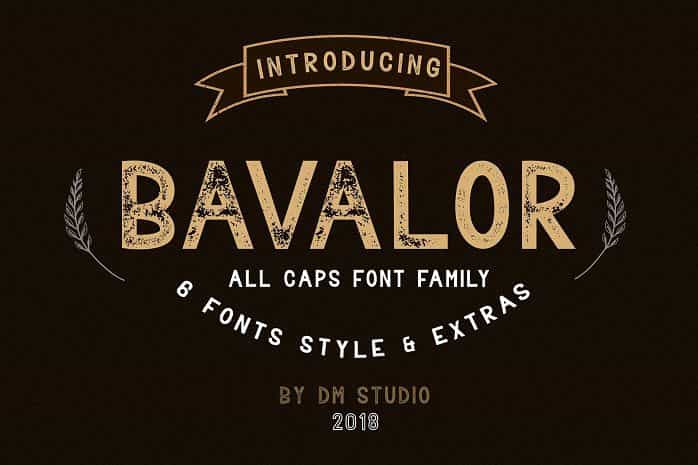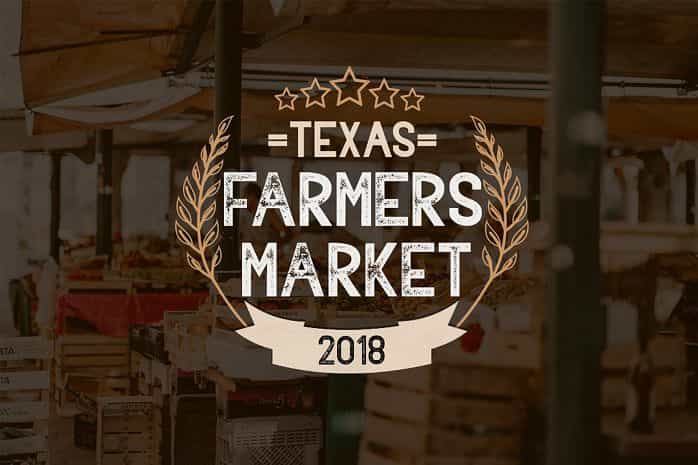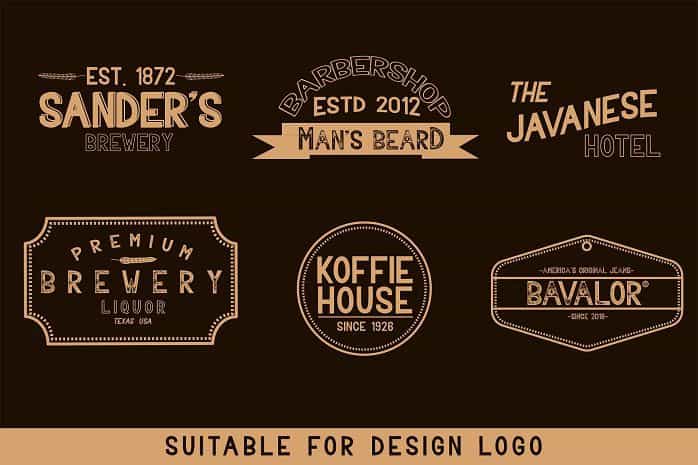
Introducing Bavalor Font Family. Bavalor which was composed by Dm. Studio. Bavalor Typeface the all in caps sans serif-font family. It contains the normal, outline and grunge versions of the font with both normal & italic styles. Bavalor has 6 OTF & TTF font files. Select freely for the designs that you prefer, pair between each version but it will be great if you make it stand alone. This collection will be the only, strong design for all your projects.